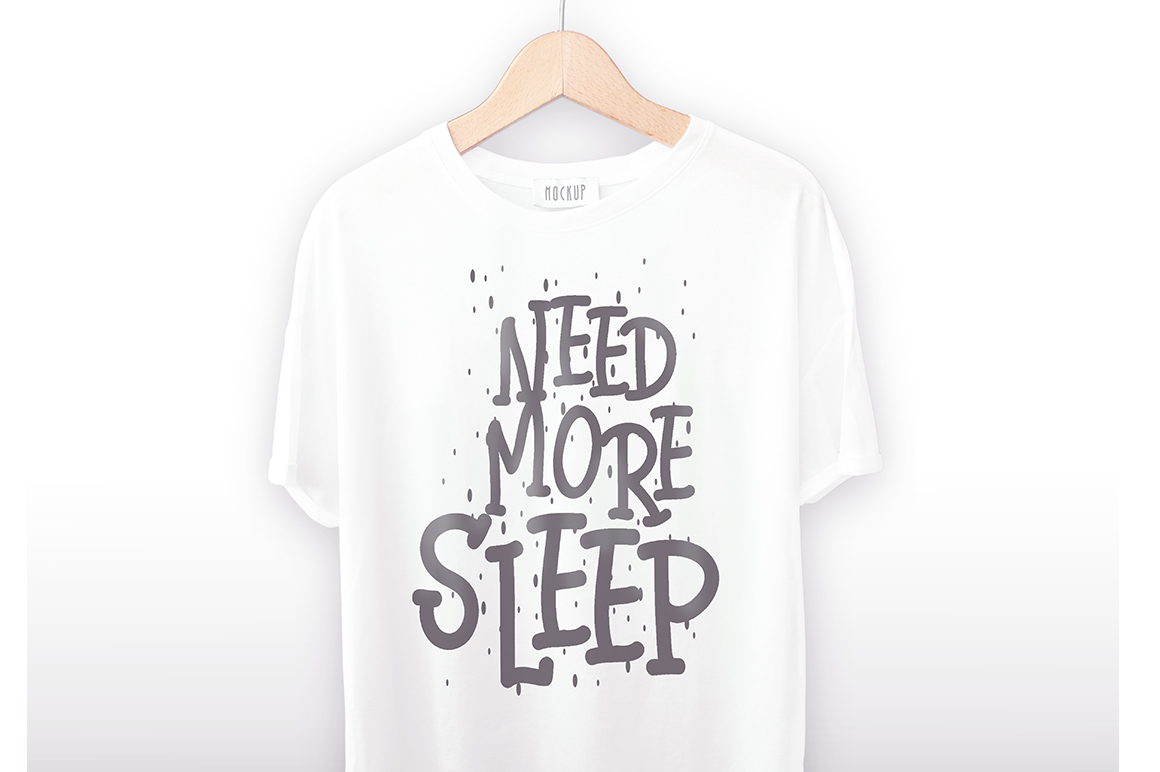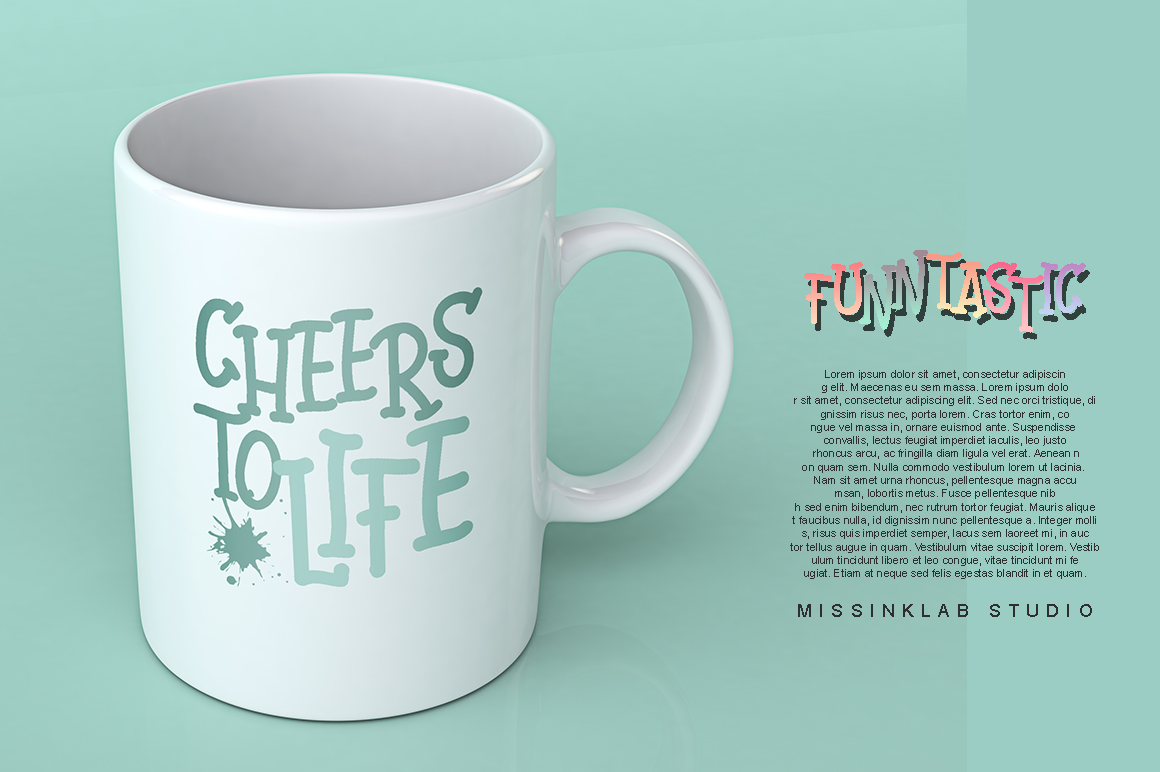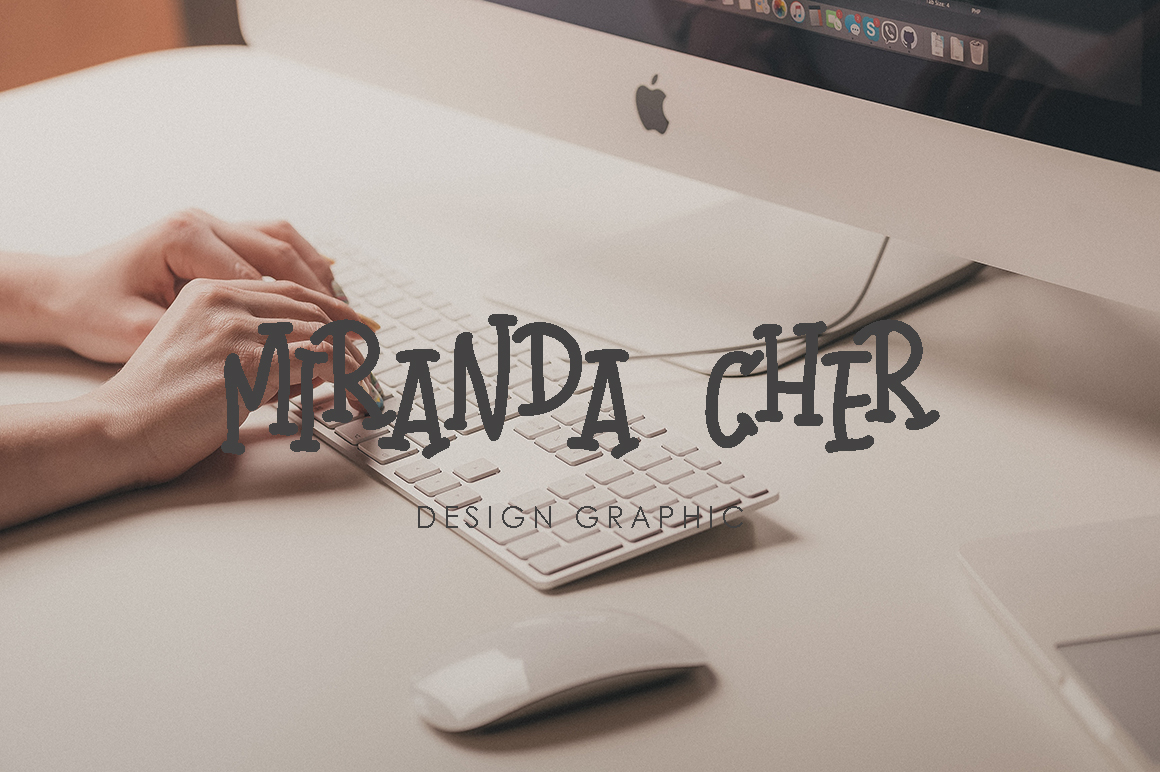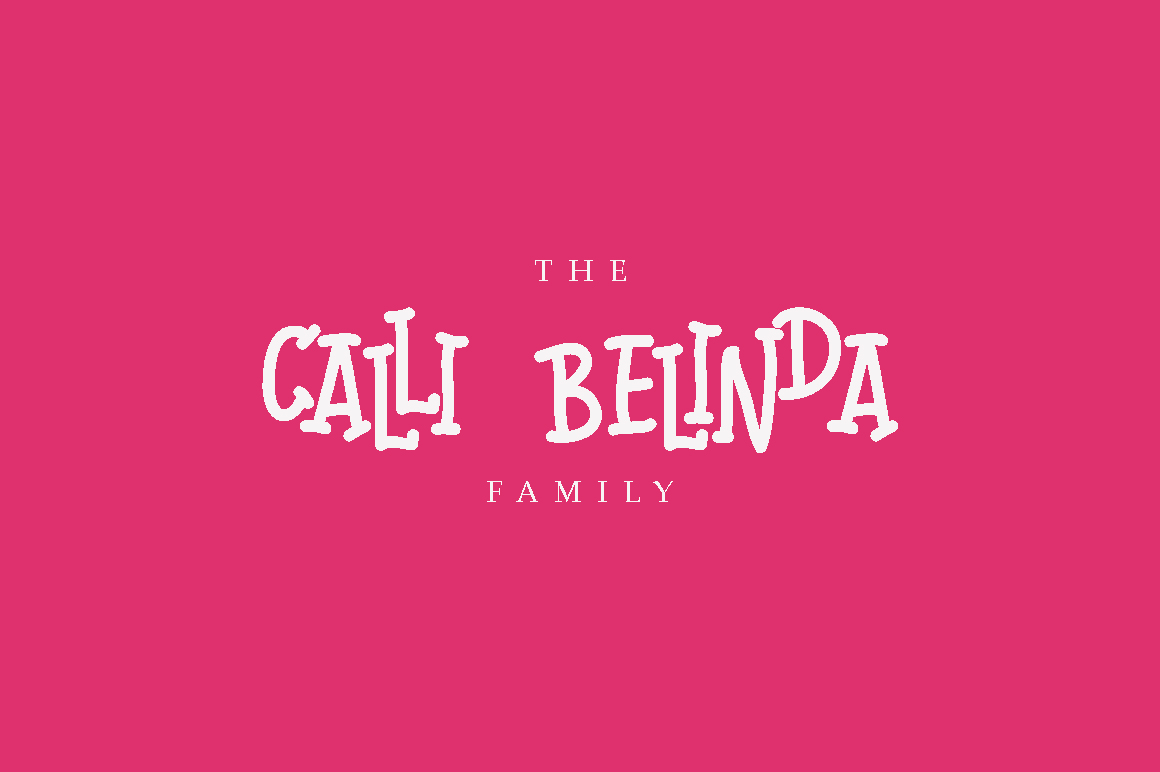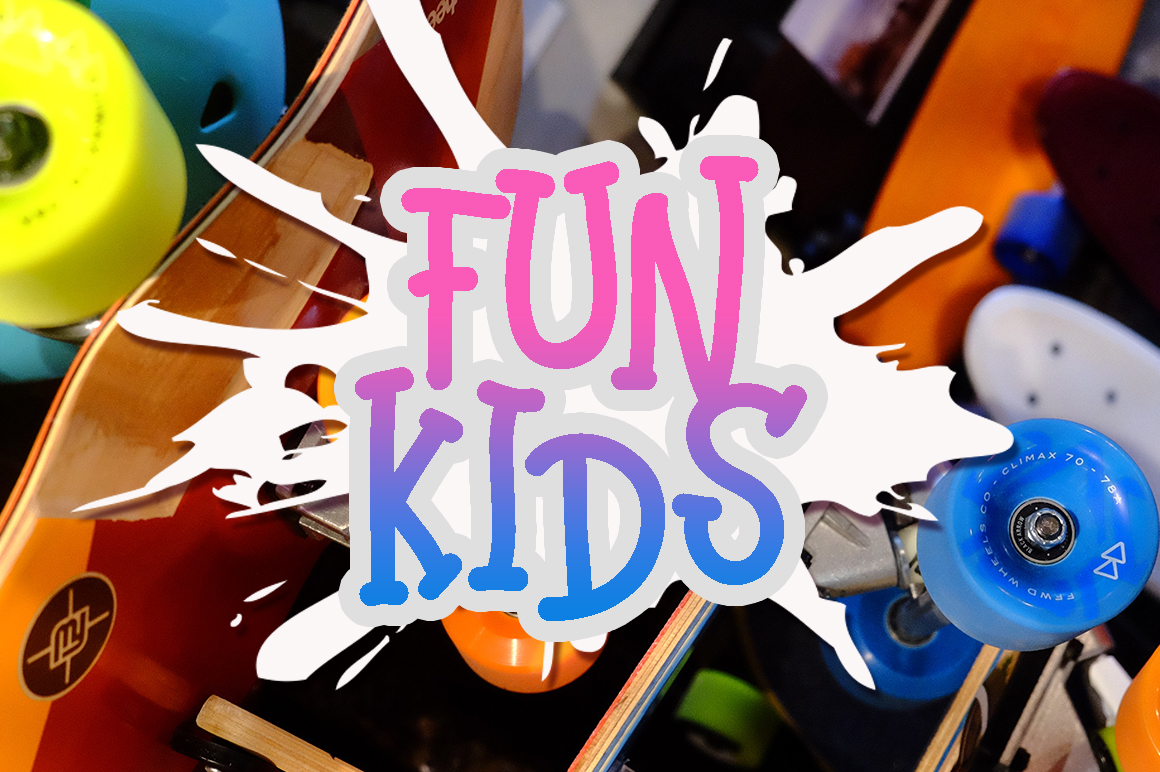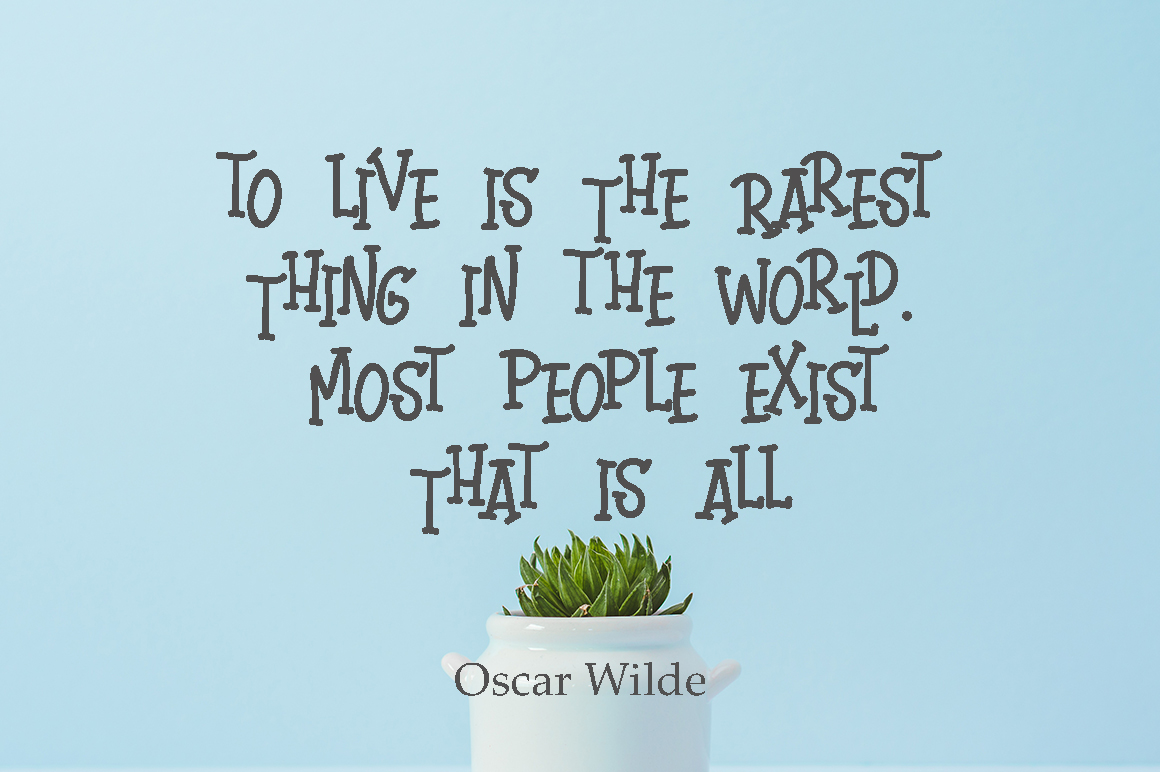
Introducing Funntastic Font: The Ultimate Playful Display Font
Are you tired of using the same old boring fonts for your designs? Look no further! Funntastic is a stunning playful display font that is sure to add a touch of whimsy and fun to any project. In this article, we’ll dive into the features and benefits of Funntastic, and explore how it can elevate your designs to the next level.
What is Funntastic Font?
Funntastic is a modern display font that is designed to make a statement. With its bold and playful style, it’s perfect for designers and crafters who want to add a bit of personality to their work. The font features a unique and quirky design, with rounded edges and a carefree feel that’s sure to capture the attention of your audience.
Key Features of Funntastic Font
- Playful and Whimsical Design: Funntastic features a one-of-a-kind design that’s sure to stand out from the crowd. Its playful and whimsical style makes it perfect for designs that require a bit of personality.
- Bold and Eye-Catching: With its bold and chunky design, Funntastic is sure to grab attention. Whether you’re designing a poster, flyer, or social media graphic, this font is sure to make your text pop.
- Highly Versatile: Funntastic is a highly versatile font that can be used for a wide range of design projects. From children’s party invitations to branding and packaging, this font can be used in any project that requires a bit of fun and whimsy.
- Easily Readable: Despite its playful design, Funntastic is surprisingly easy to read. This makes it perfect for designs that require a bit of personality, but still need to be clear and concise.
Benefits of Using Funntastic Font
So why should you choose Funntastic for your next design project? Here are just a few benefits of using this amazing font:
- Adds Personality to Your Designs: With Funntastic, you can add a bit of personality to your designs and make them stand out from the crowd.
- Increases Engagement: The playful and whimsical design of Funntastic is sure to capture the attention of your audience and increase engagement.
- Perfect for Branding and Marketing: Funntastic is perfect for branding and marketing projects that require a bit of fun and personality.
Who Can Use Funntastic Font?
Funntastic is perfect for a wide range of designers and crafters, including:
- Graphic Designers: Whether you’re designing logos, brochures, or social media graphics, Funntastic is a great addition to your font library.
- Crafters: If you’re a crafter who loves to make things like party decorations, cards, and gift tags, Funntastic is a great font to use.
- Small Business Owners: If you’re a small business owner who wants to add a bit of personality to your branding and marketing materials, Funntastic is a great choice.